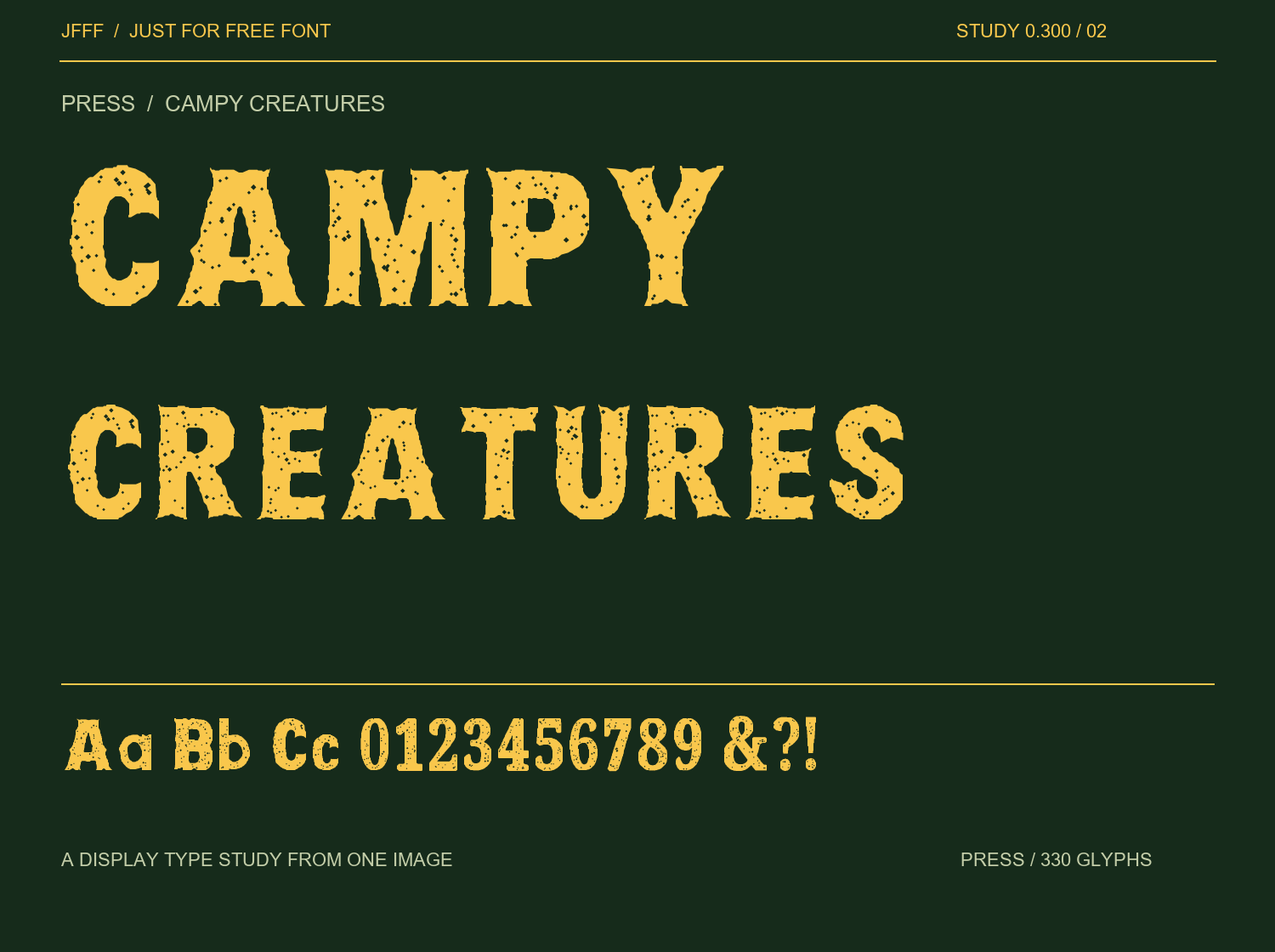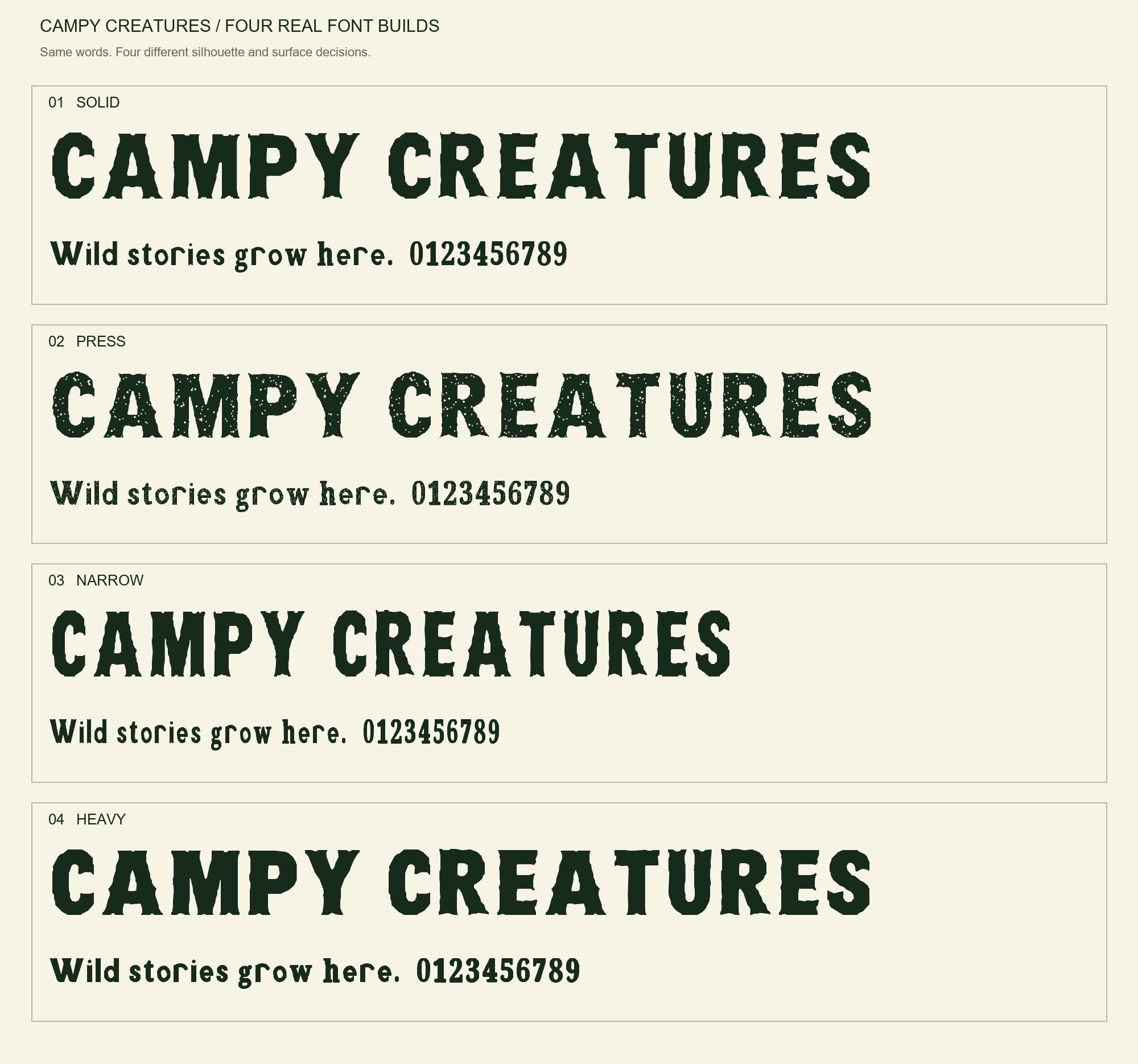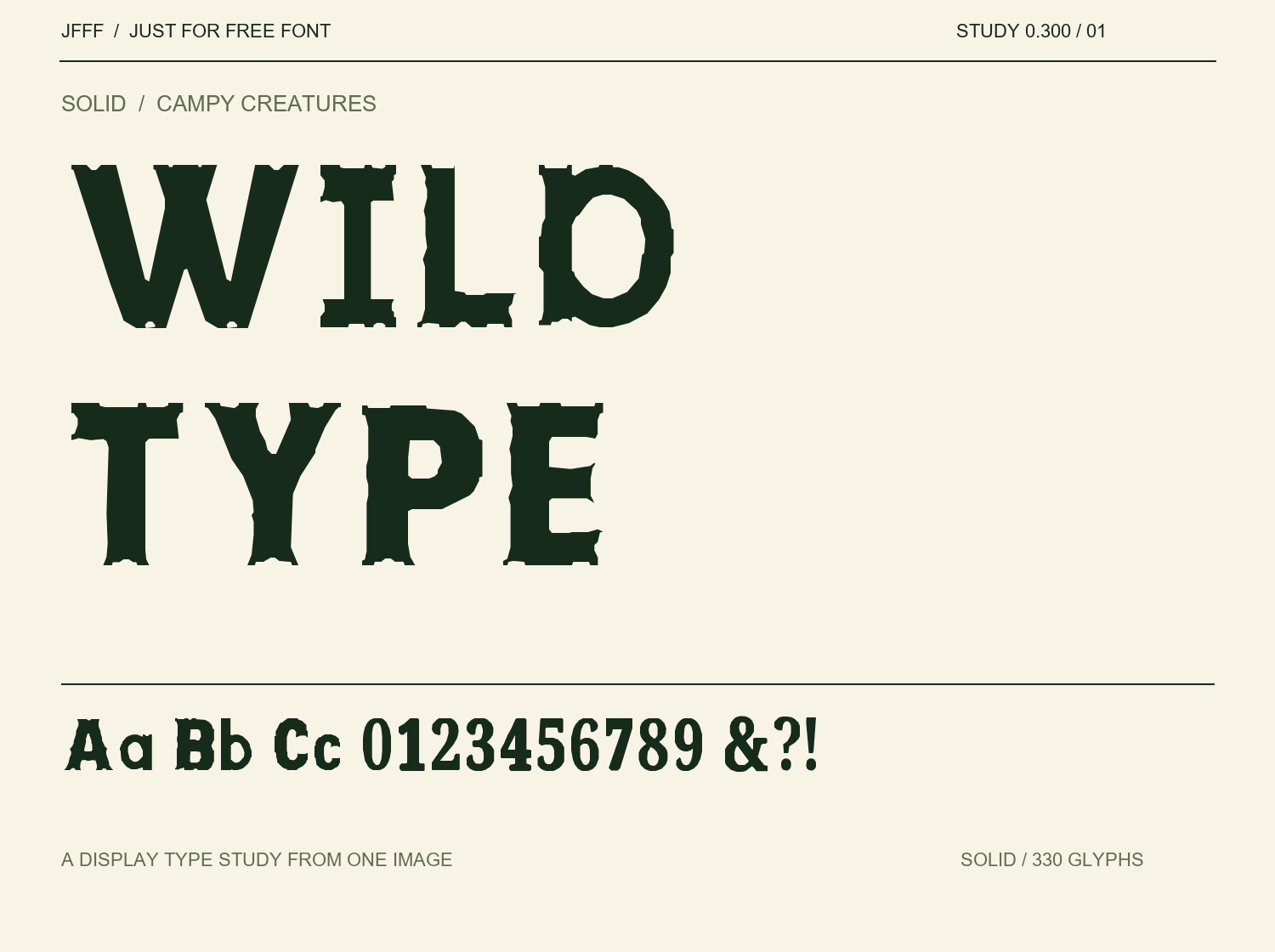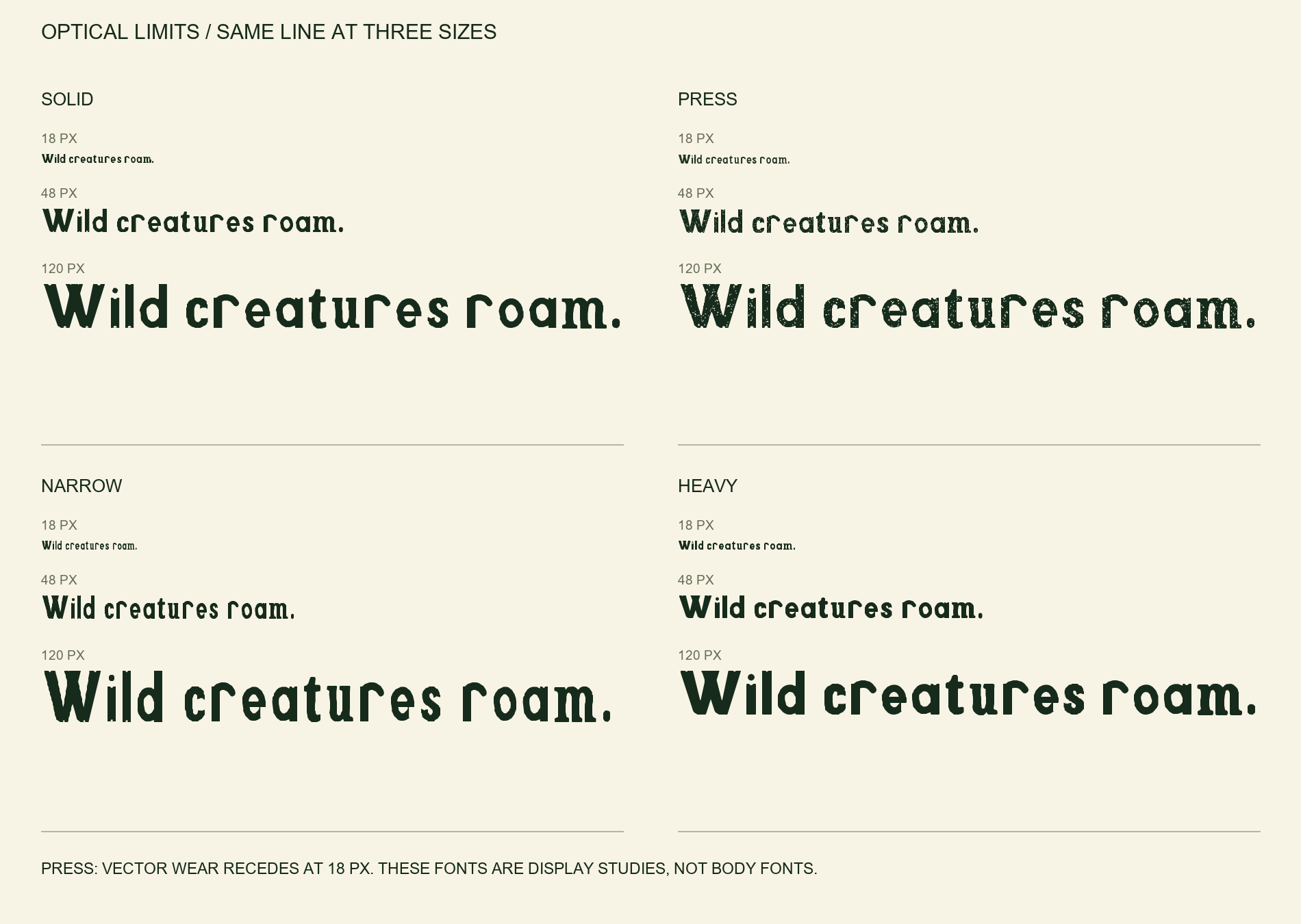
A textured, hand-cut display type family inspired by the supplied CAMPY CREATURES artwork. Download four styles together: Solid, Press, Narrow and Heavy. Each has 330 encoded Latin characters and kerning. Design preview 0.300 for short headlines, posters and packaging; Solid reads most clearly at smaller display sizes, while Press texture works best at 80 px or above. Color is shown in the specimens only. Some letter skeletons adapt Noto Serif Bold; its authors and OFL license are credited inside the download. Native editing-app, printed PDF and comprehensive kerning proofs remain pending.